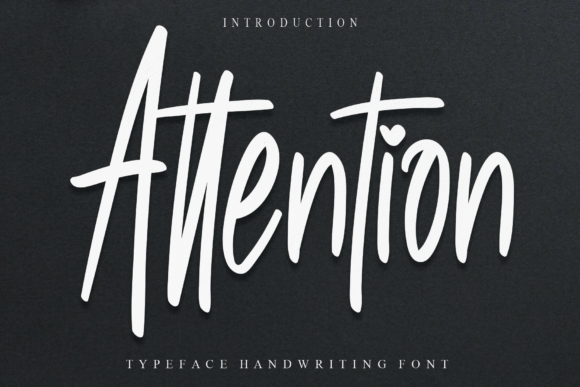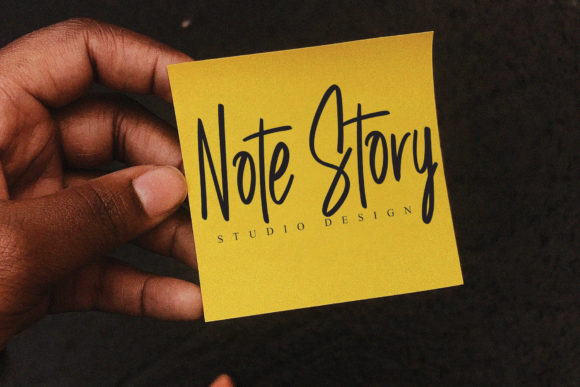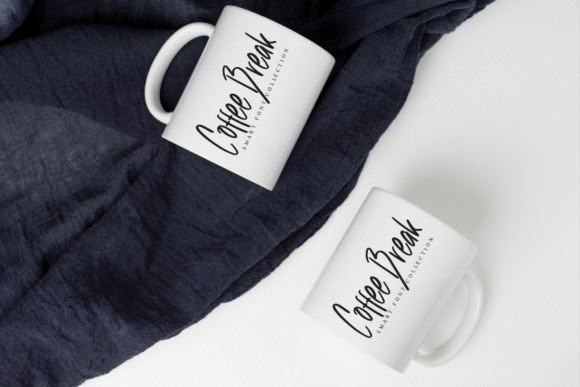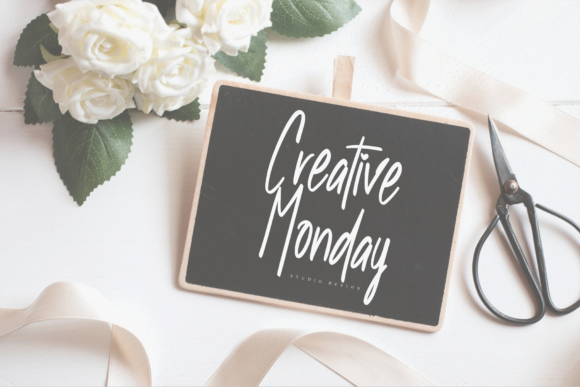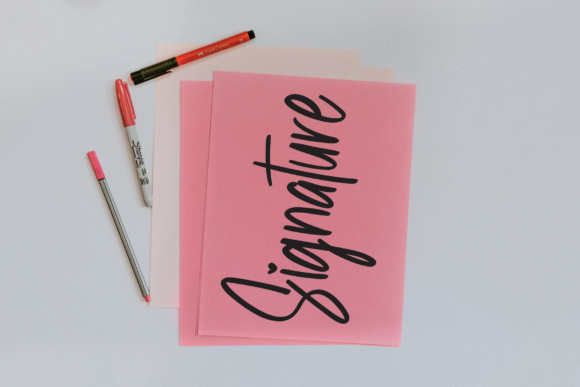
Attention Font
About Attention Font
Attention is a relaxed, fashionable and cool handwritten font. It will look stunning on any poster flyer or print.